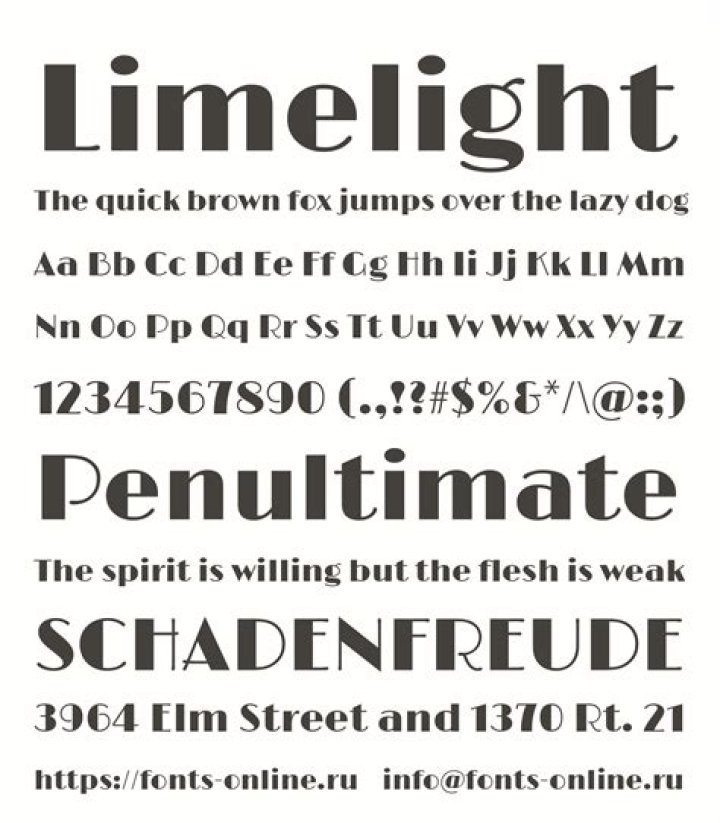
What font is Limelight?
Limelight is a sensitive rendition of the classic high contrast art deco style geometric sans serif. This style is often used to suggest the 1920’s time period as well as the theatre generally and hollywood filmmaking in particular.